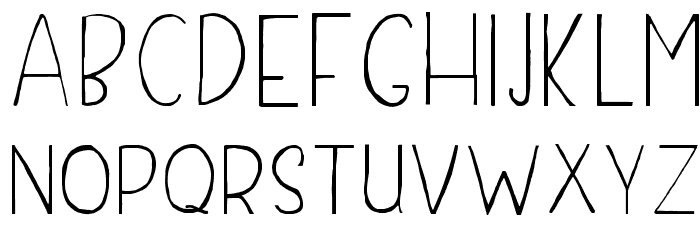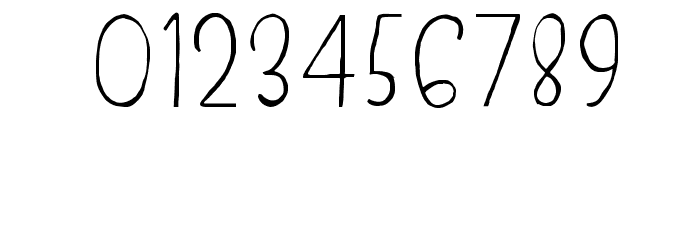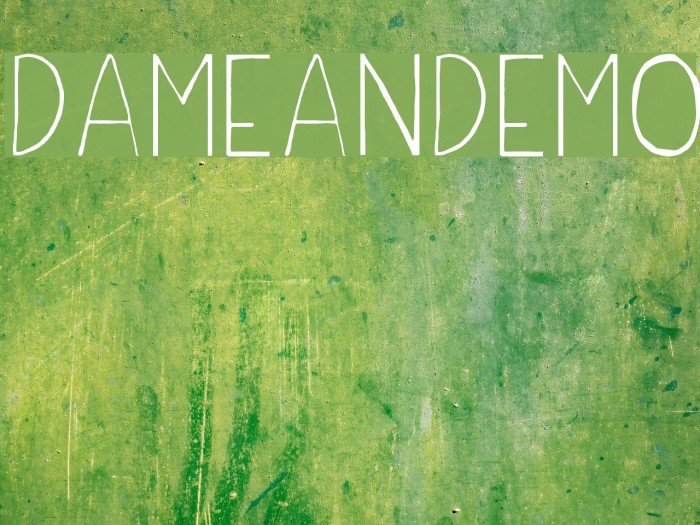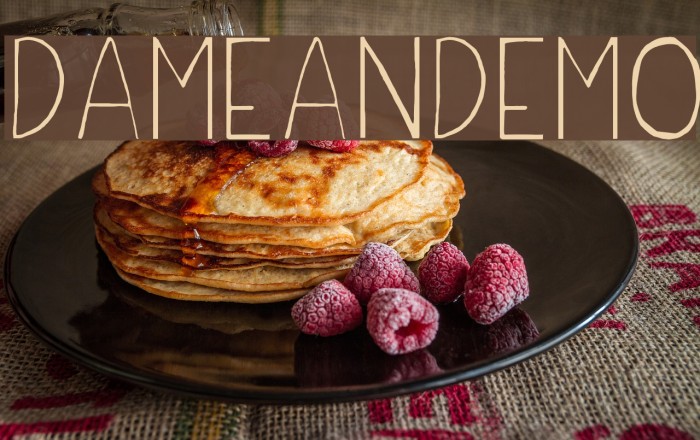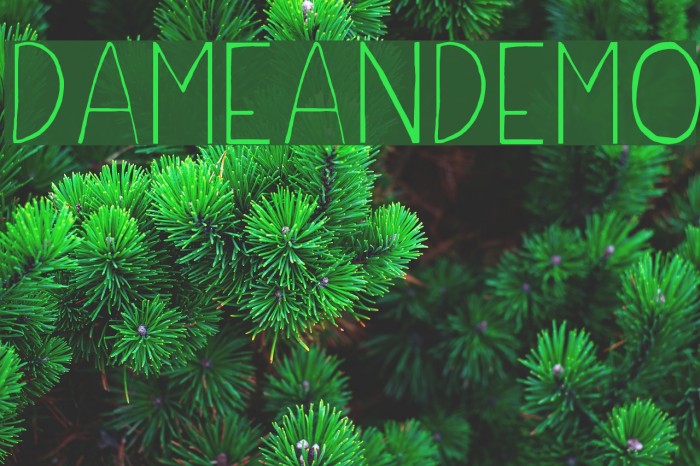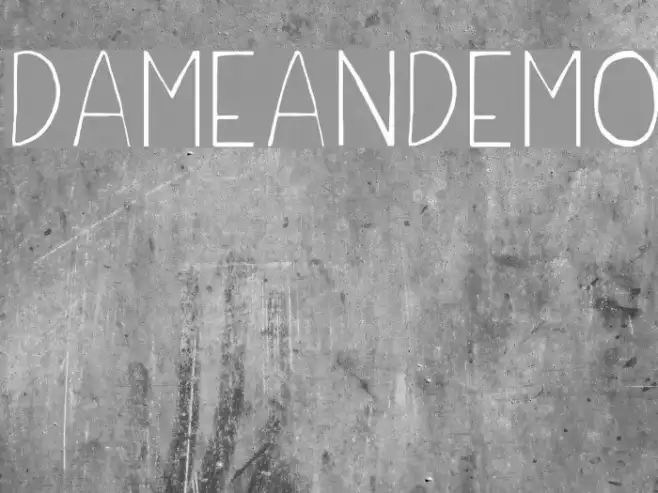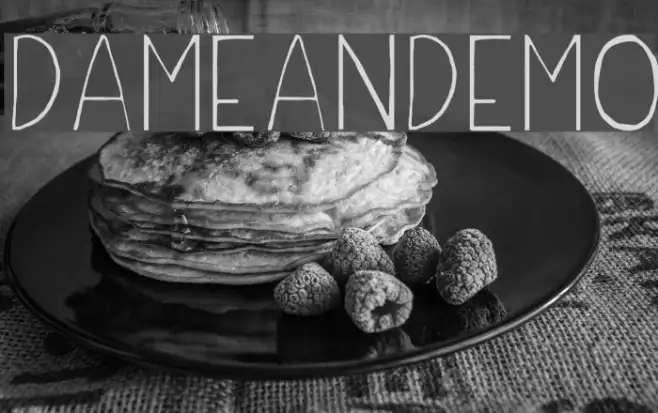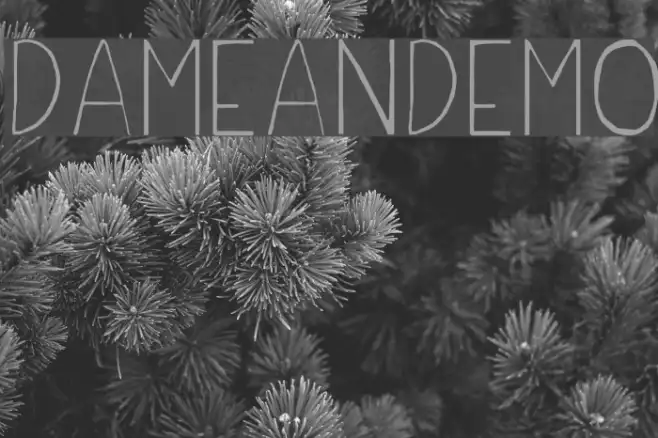
DameanDemo Font
This font features a unique blend of modern and handwritten styles, characterized by its tall, narrow letterforms and subtle irregularities that give it a personal touch. The uppercase letters are distinct with slightly elongated vertical strokes, while the lowercase letters maintain a consistent height, enhancing readability. The numerals are designed to match the overall aesthetic, with a clean and straightforward appearance. The special characters are crafted to complement the alphabet, maintaining the same stylistic elements. This font's overall design is both elegant and approachable, making it versatile for various applications.
A modern, handwritten-style font with tall, narrow letterforms and subtle irregularities.
- Proposed Projects: Ideal for projects that require a personal touch, such as invitations, greeting cards, or branding materials that aim to convey elegance and approachability.